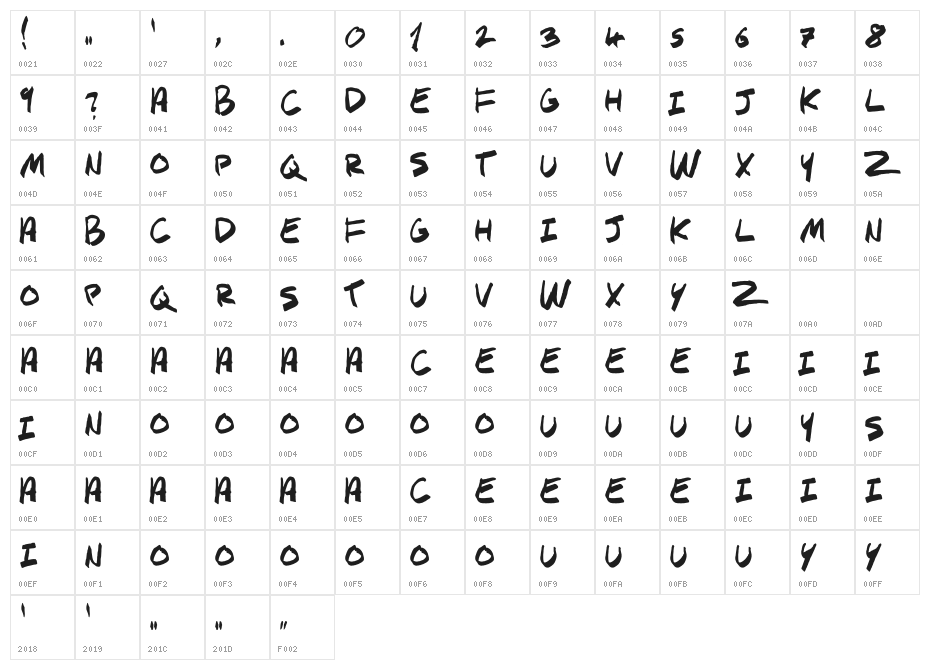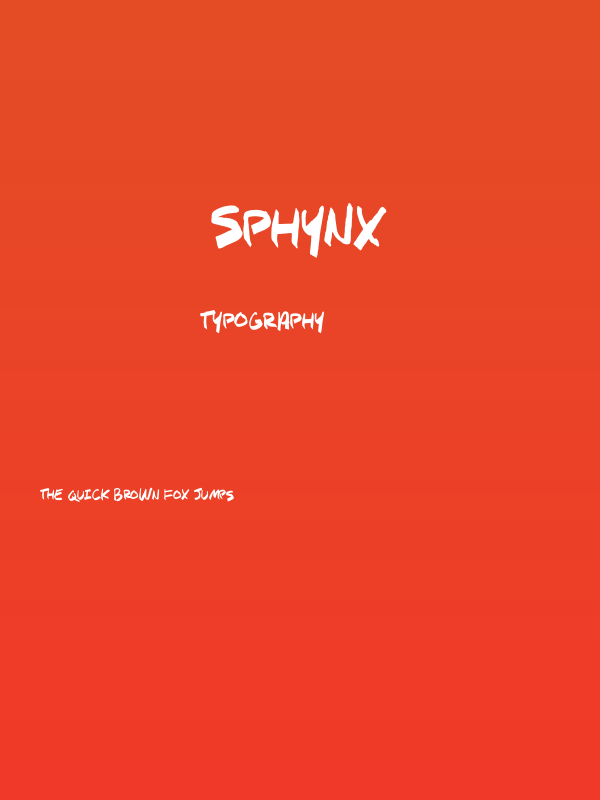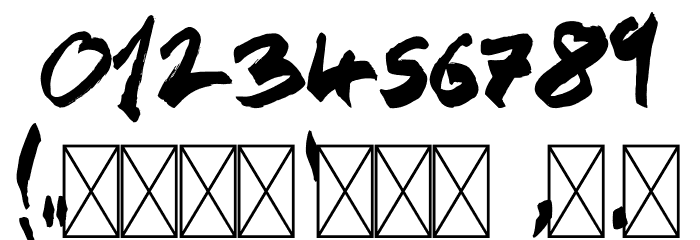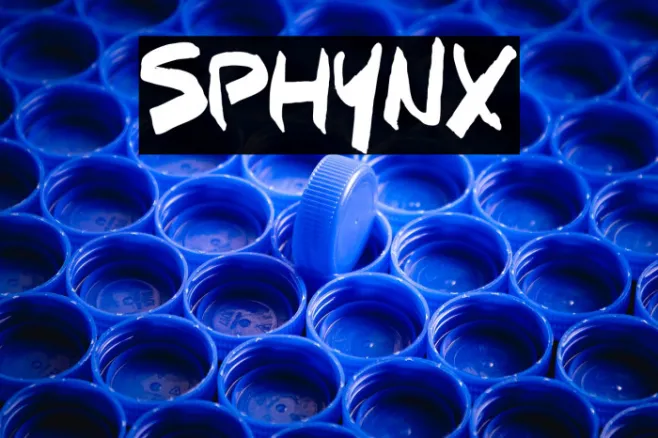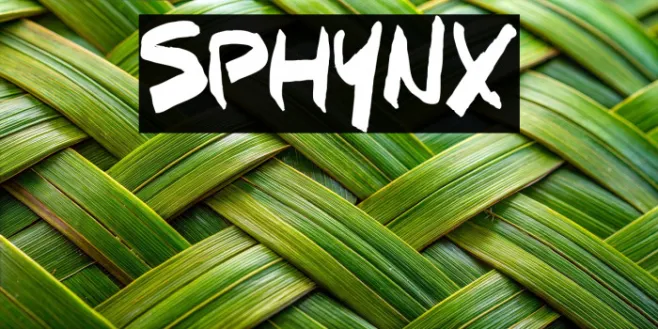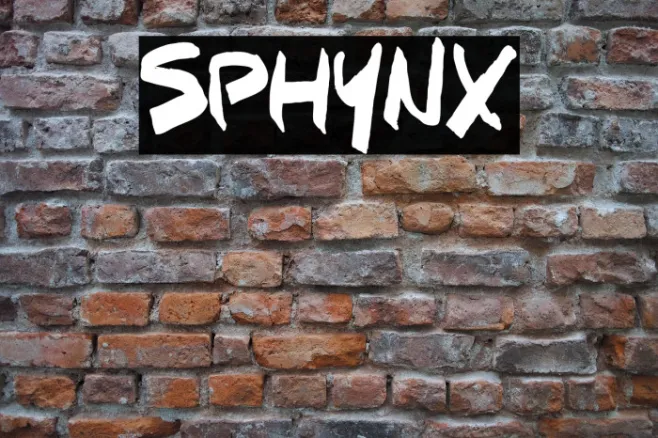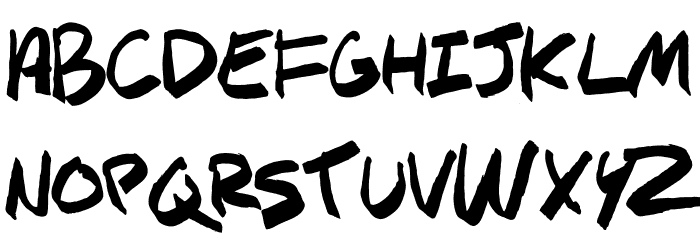
SPHYNX Font
SPHYNX Description
This font features a bold, dynamic style with a handwritten appearance that exudes energy and spontaneity. The characters are crafted with a brush-like texture, giving them a raw and artistic feel. The uppercase letters are prominent and assertive, while the lowercase letters maintain a consistent flow, enhancing the overall fluidity of the font. The numbers are equally bold, ensuring they stand out in any design. Special characters are included, maintaining the same energetic style. This font is perfect for projects that require a personal touch or a creative flair.
| Proposed Projects | Ideal for creative projects such as posters, artistic branding, social media graphics, and event invitations. |